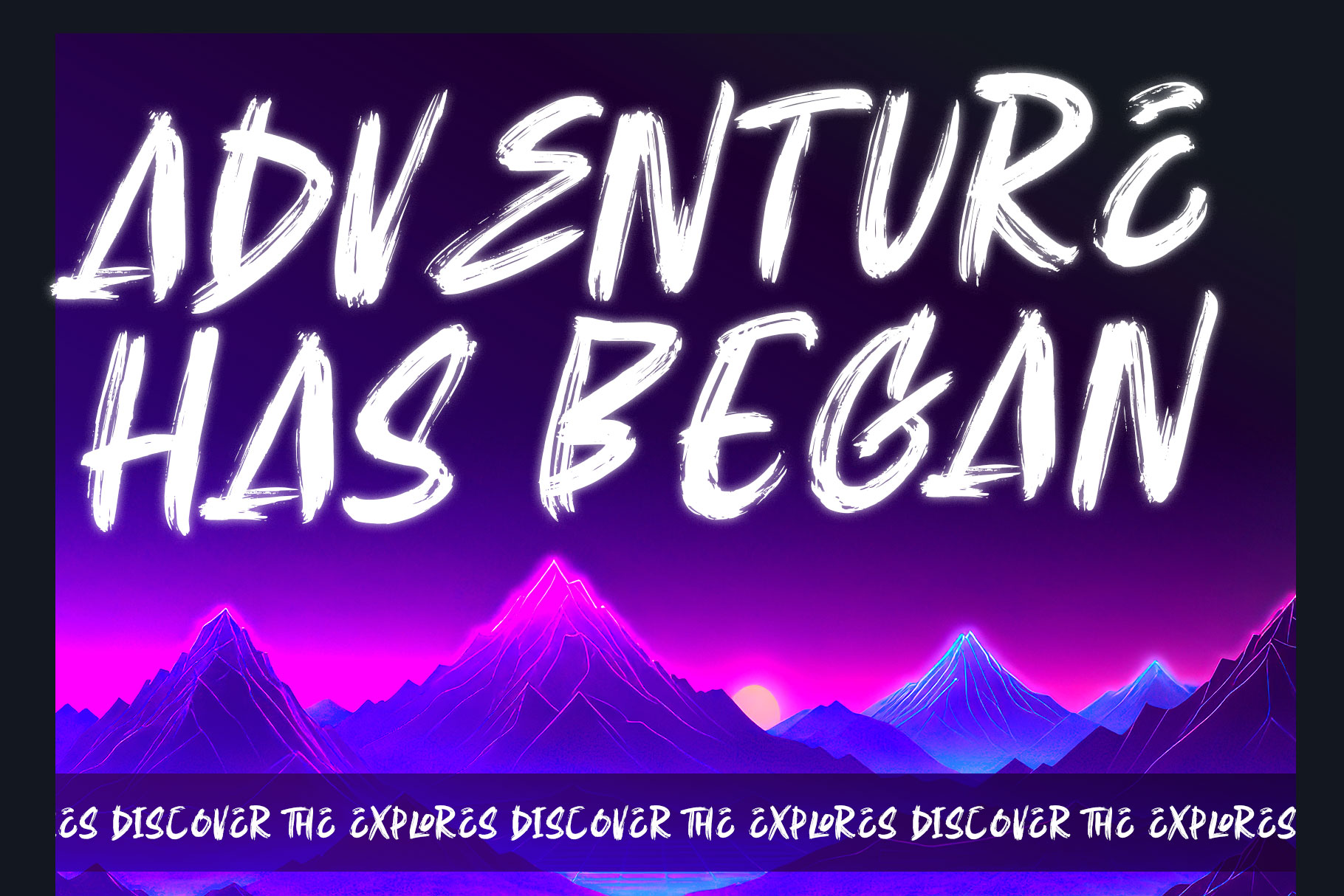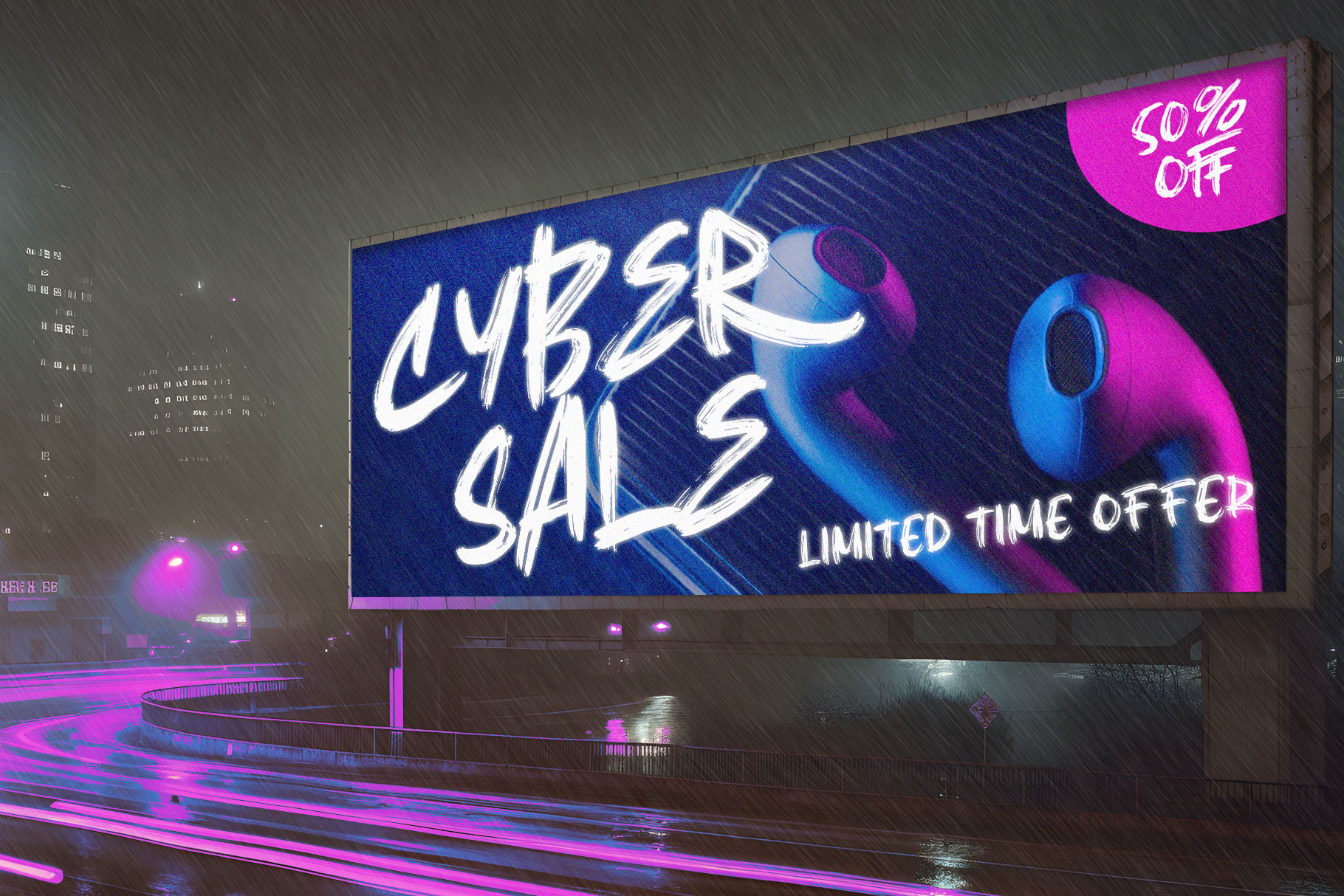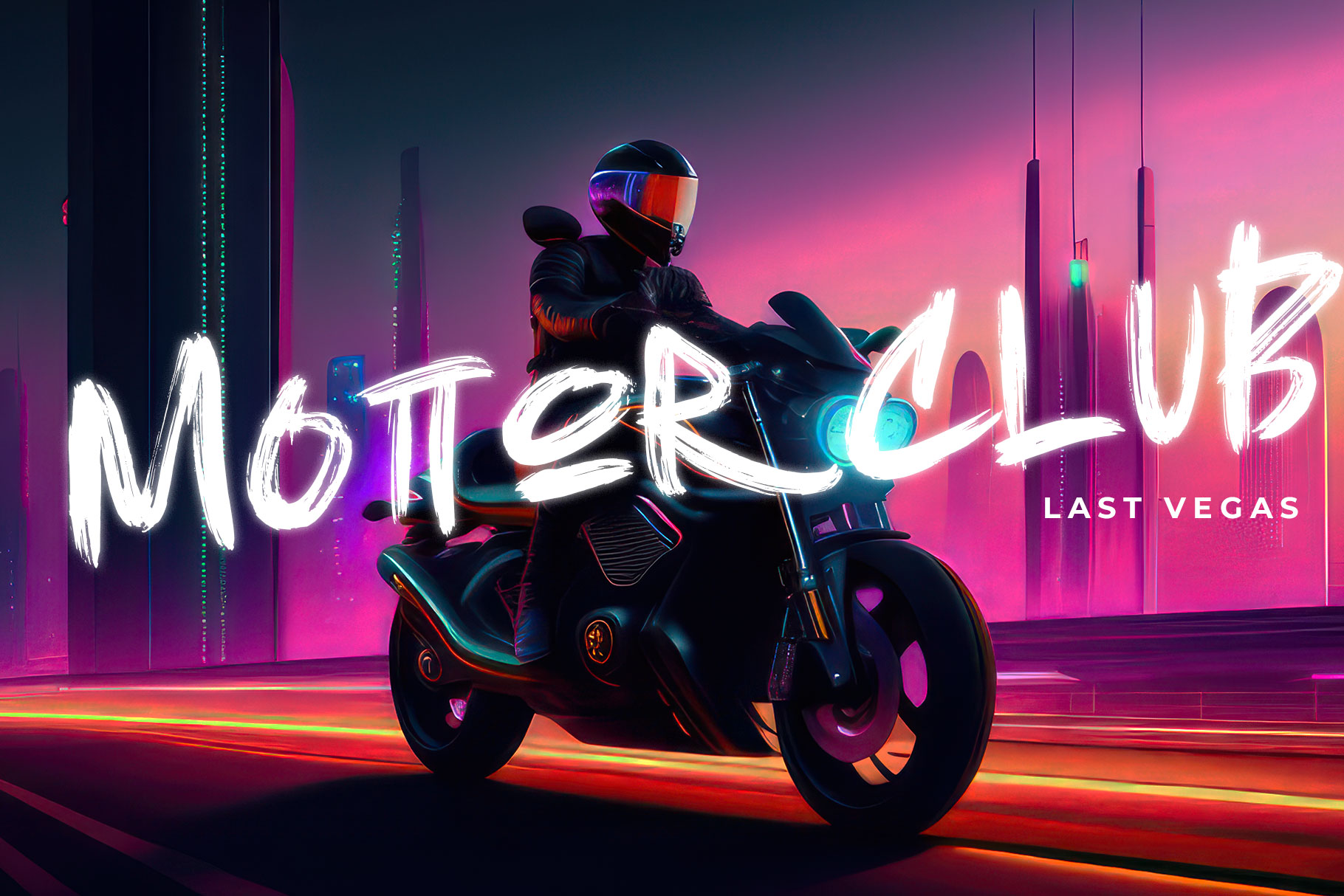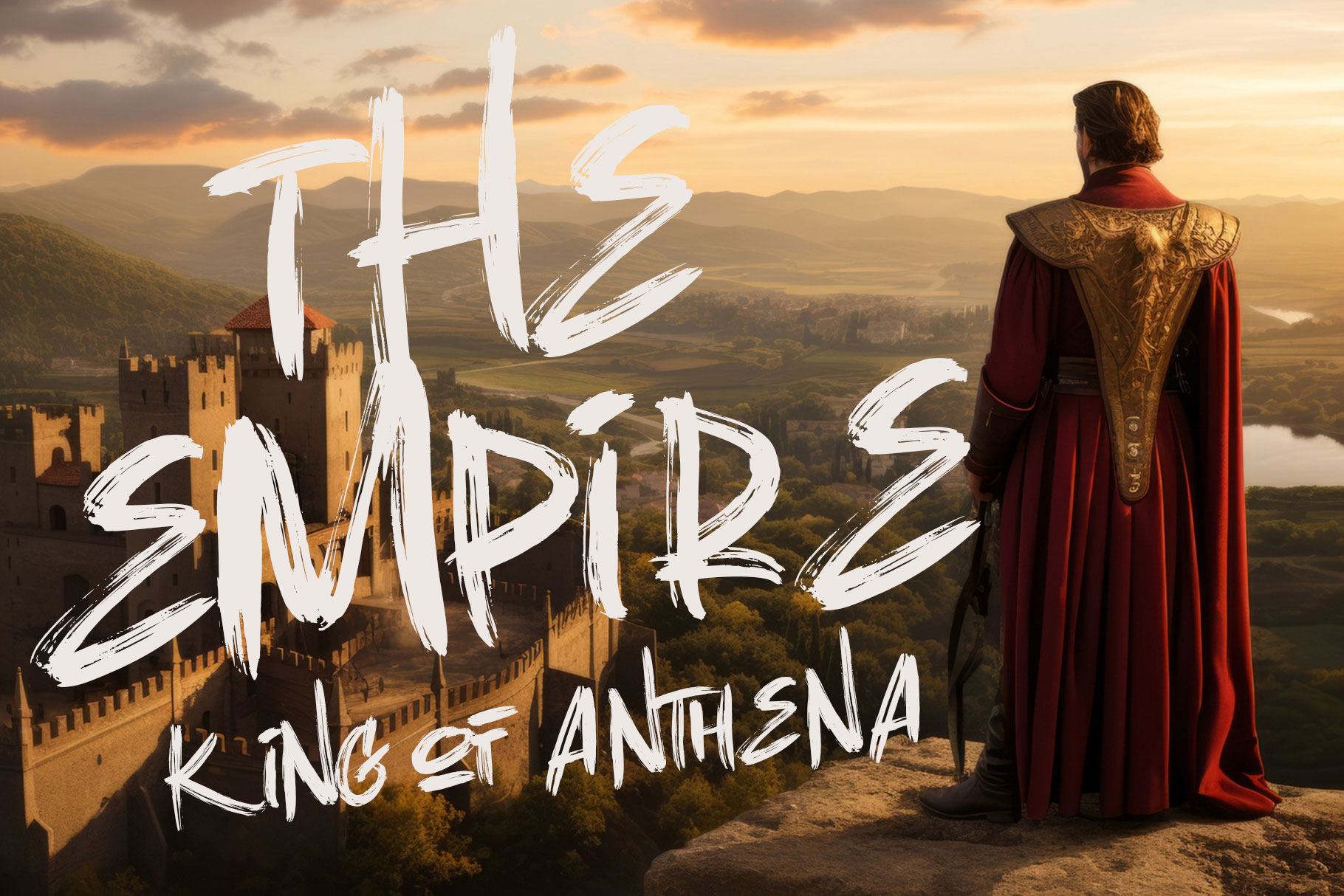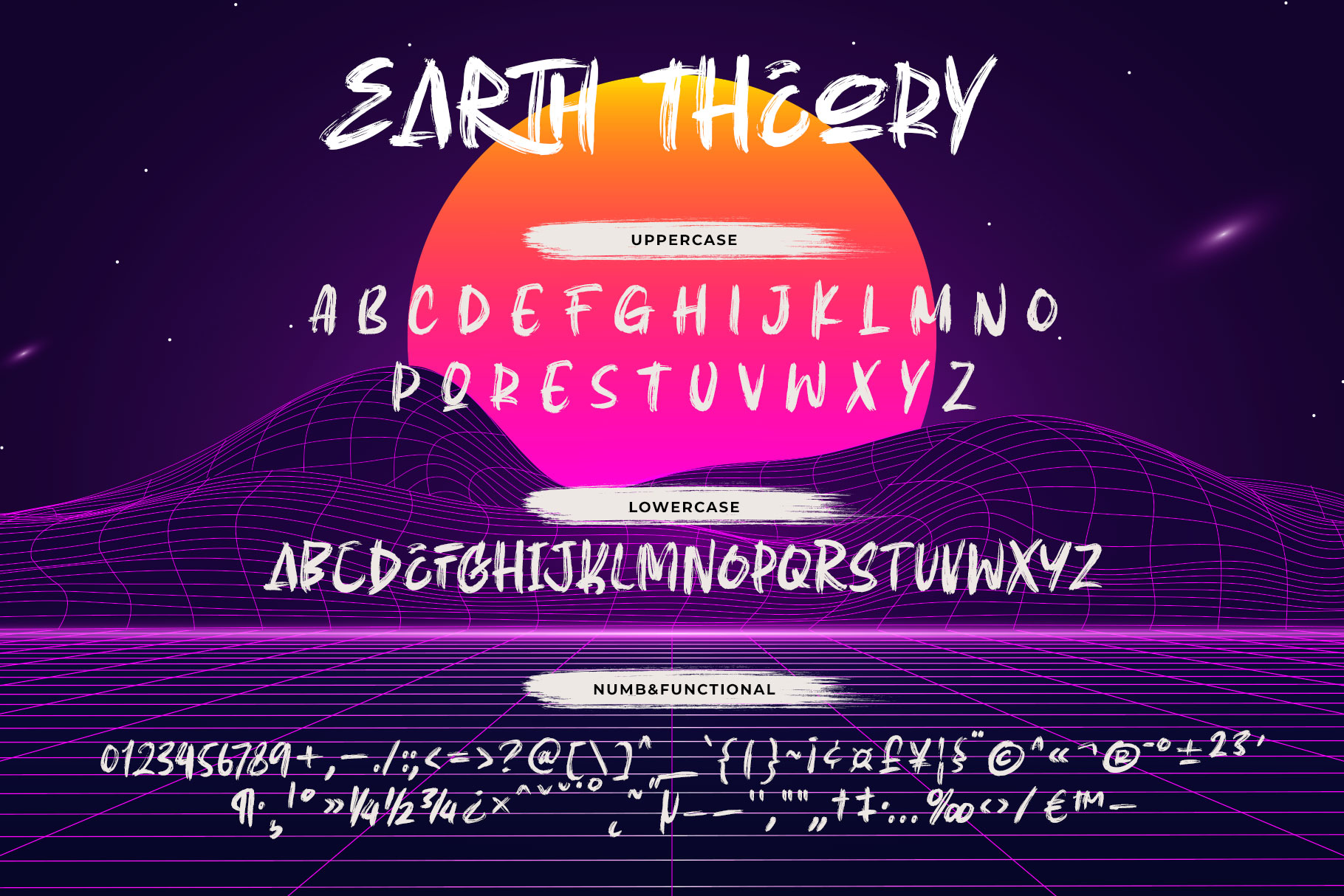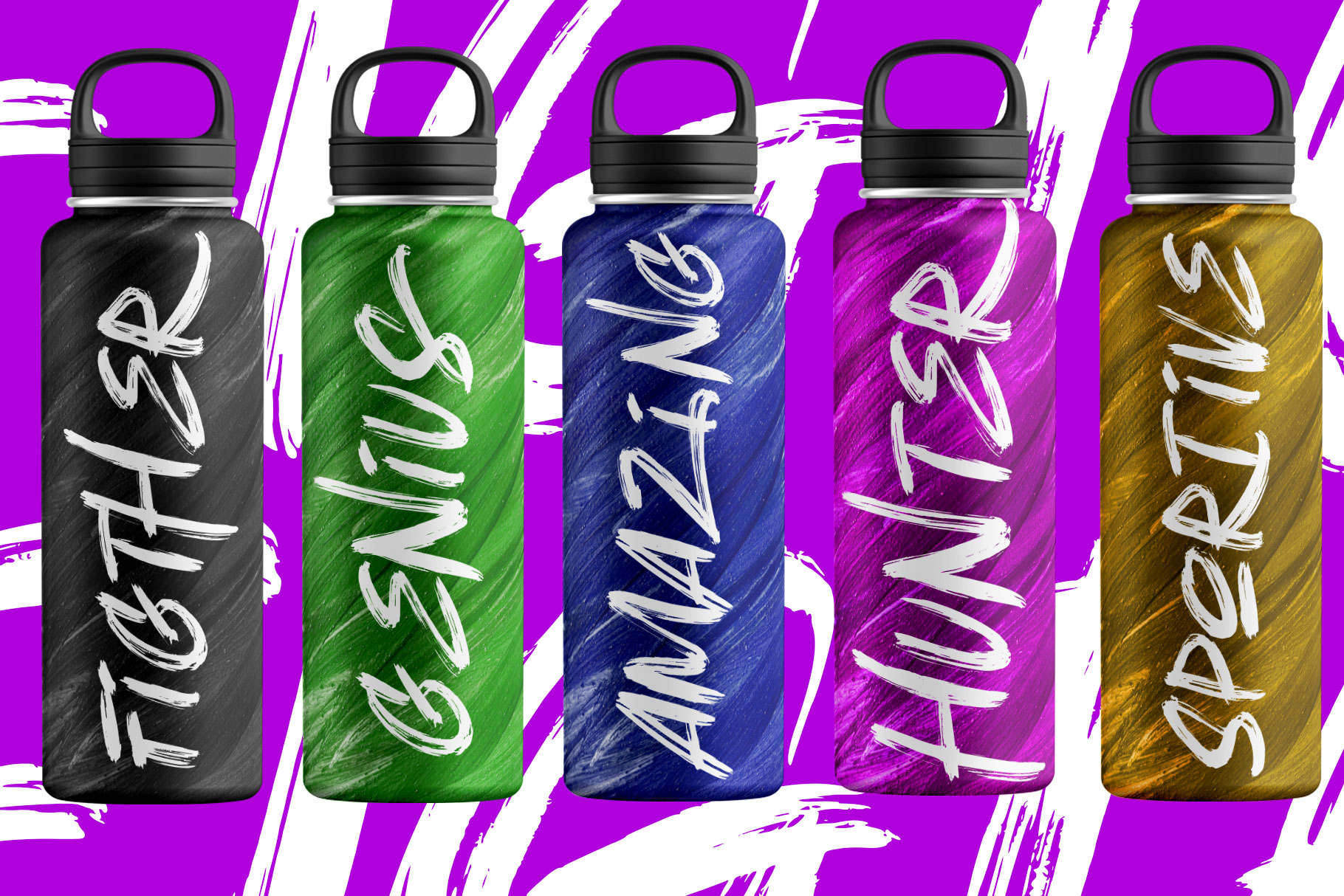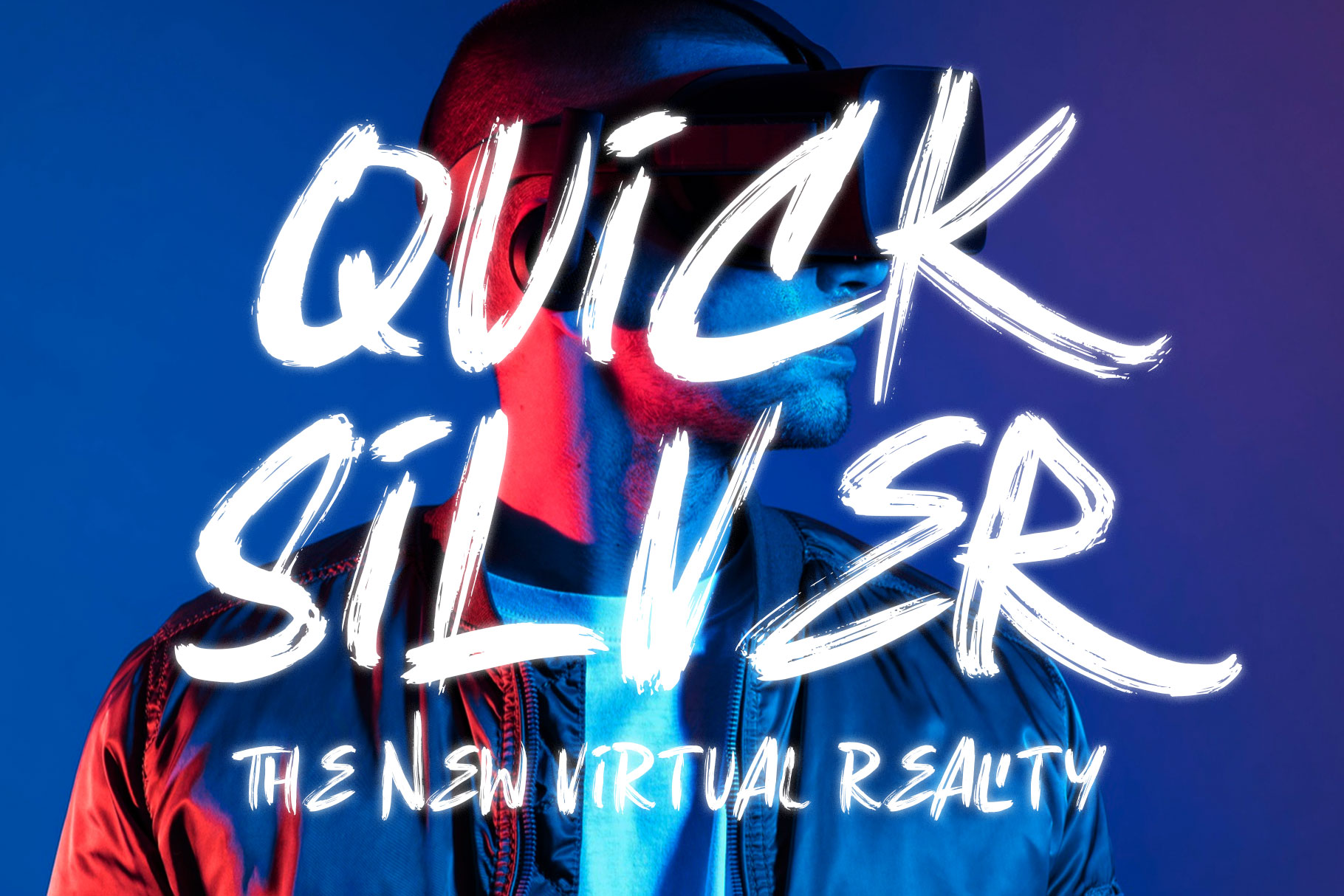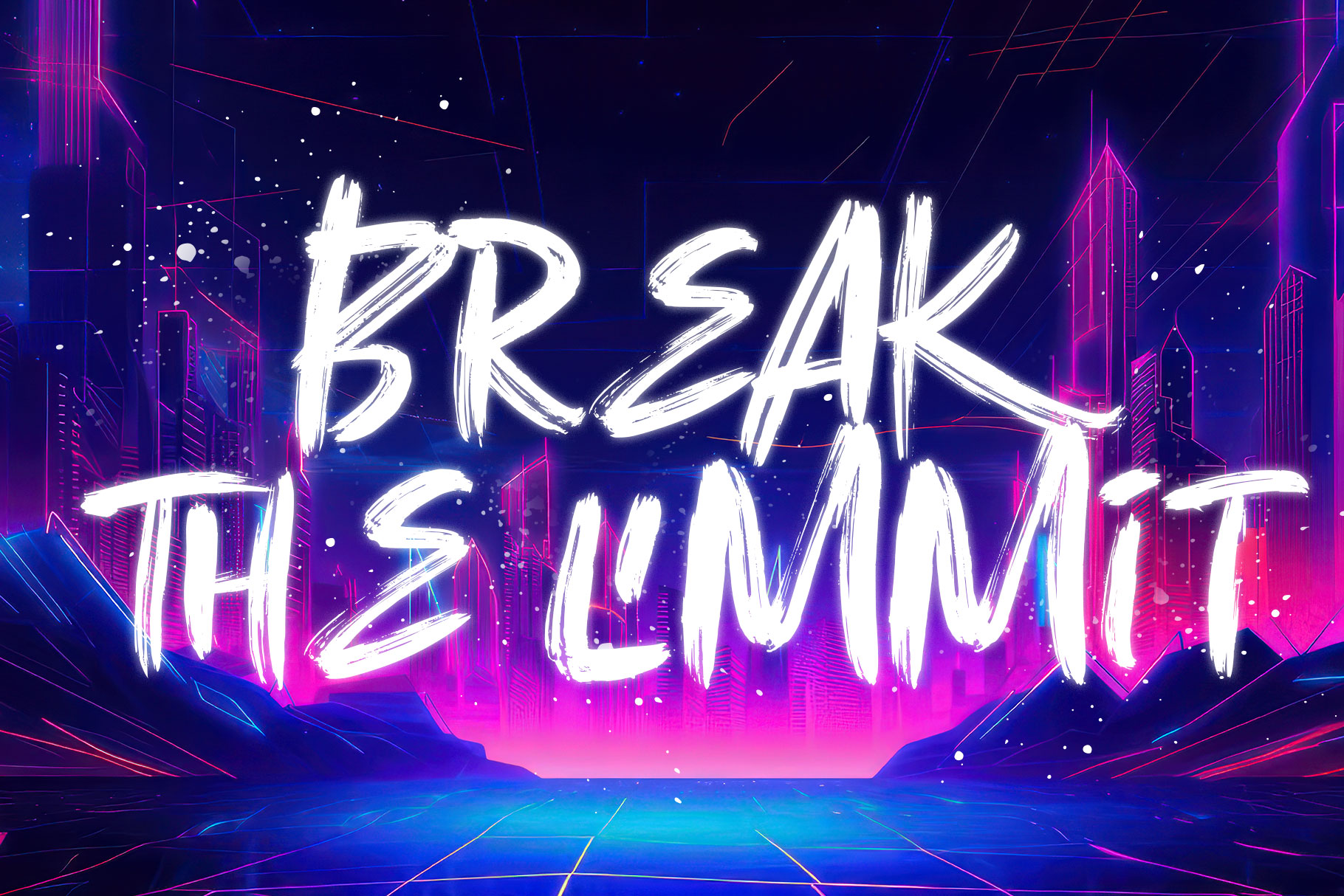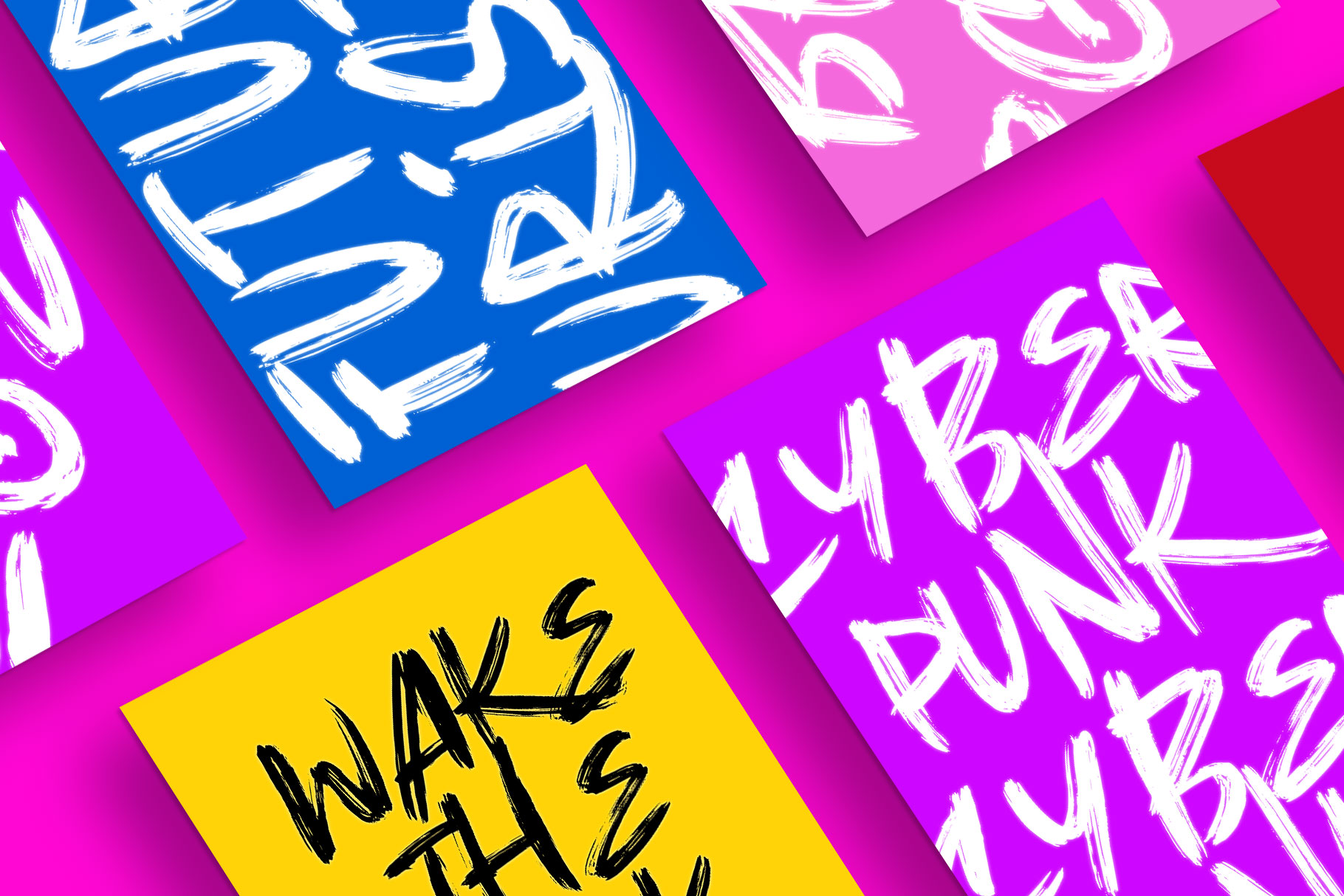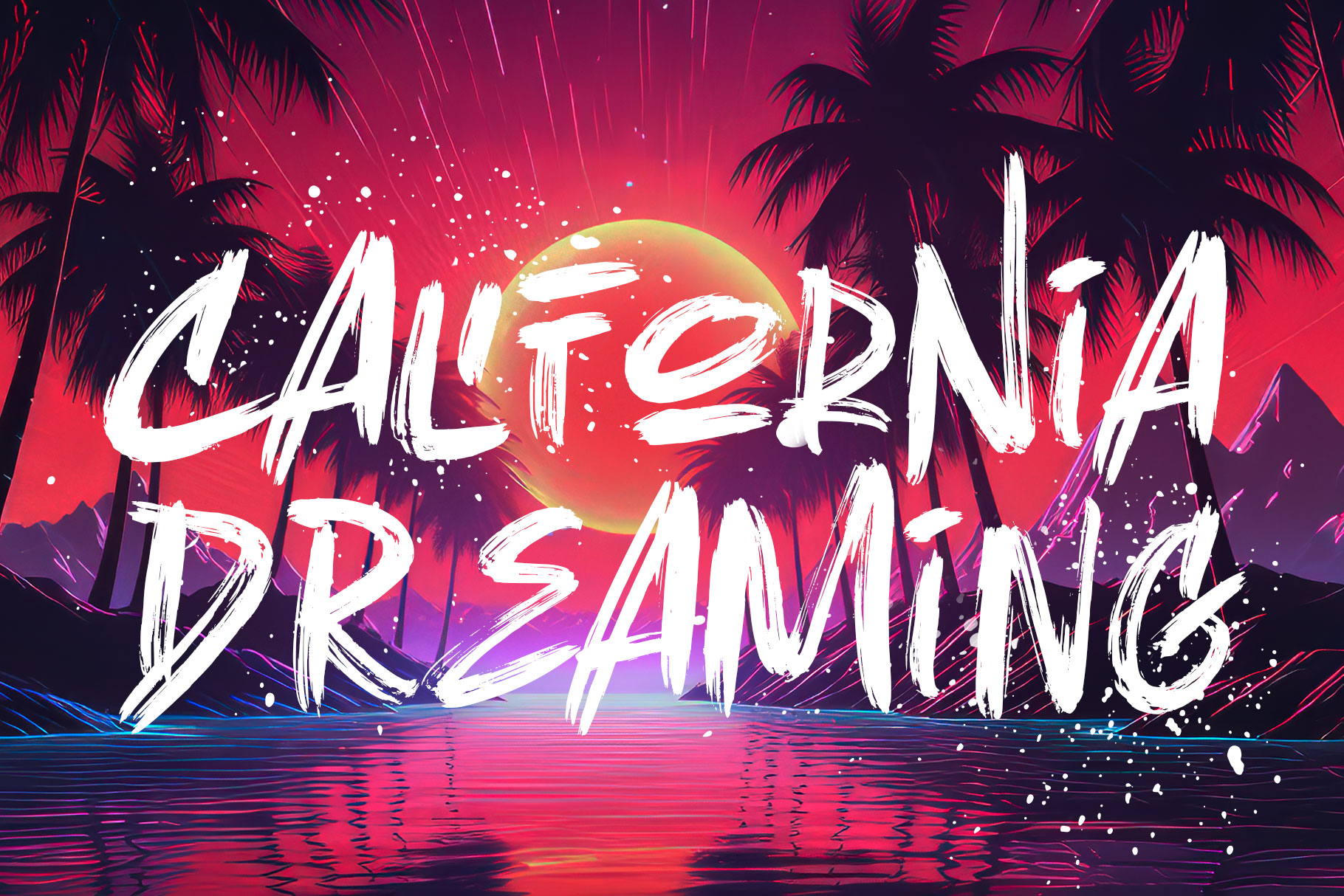
Earth Theory Urban Brush Font
Earth Theory is street brush font with perfect detail stroke. Earth theory come with stylish style to make design project more attractive and stand out.
Earth Theory is a perfect choice for any creative endeavor, chic, lifestyle design such as logos, advertisements, watermark on photography, stationery, branding project, display and magazine, invitation, corporate brand, product design, label, business project and many other project need brush taste.